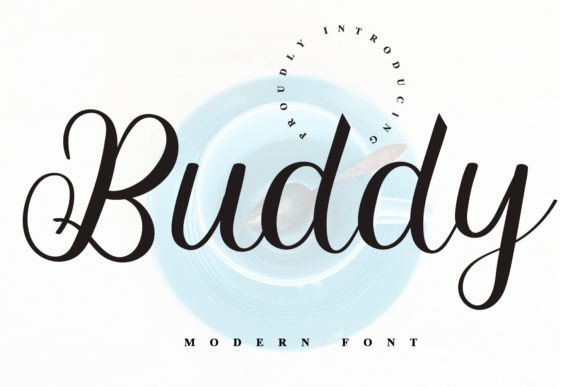
Dive into the world of elegance and sophistication with Buddy Font, the script font that exudes luxury and charm. Crafted by the talented ABBAsalam, Buddy is the embodiment of handwritten beauty, inviting you to add a touch of romance and personalization to your creative projects.
With its delicate curves and joyful spirit, Buddy is the perfect choice for capturing the essence of special moments. Whether you're designing wedding invitations, cards, or any project that yearns for a romantic touch, Buddy will transform your words into works of art. Its intricate details and flowing lines add a touch of elegance that captivates the eye, making it an ideal font for creating lasting memories.
Step into the realm of luxury and let Buddy Font guide you. Its enchanting characters will elevate your designs, adding a touch of magic and wonder. Personalize your messages, express your heartfelt emotions, and create an experience that resonates with your audience.
Experience the beauty of Buddy Font and let your creativity flourish. Its versatility knows no bounds, extending from logos and branding to social media graphics and personal crafting projects. Unleash your imagination and watch as Buddy Font transforms your designs into masterpieces that leave a lasting impression.
Make Buddy Font your font of choice and elevate your designs to new heights. Embrace the essence of luxury and charm, and let your creations shine with elegance and sophistication. The possibilities are endless, waiting for you to explore and make your mark on the world. Embrace the power of Buddy Font and let your creative journey begin.